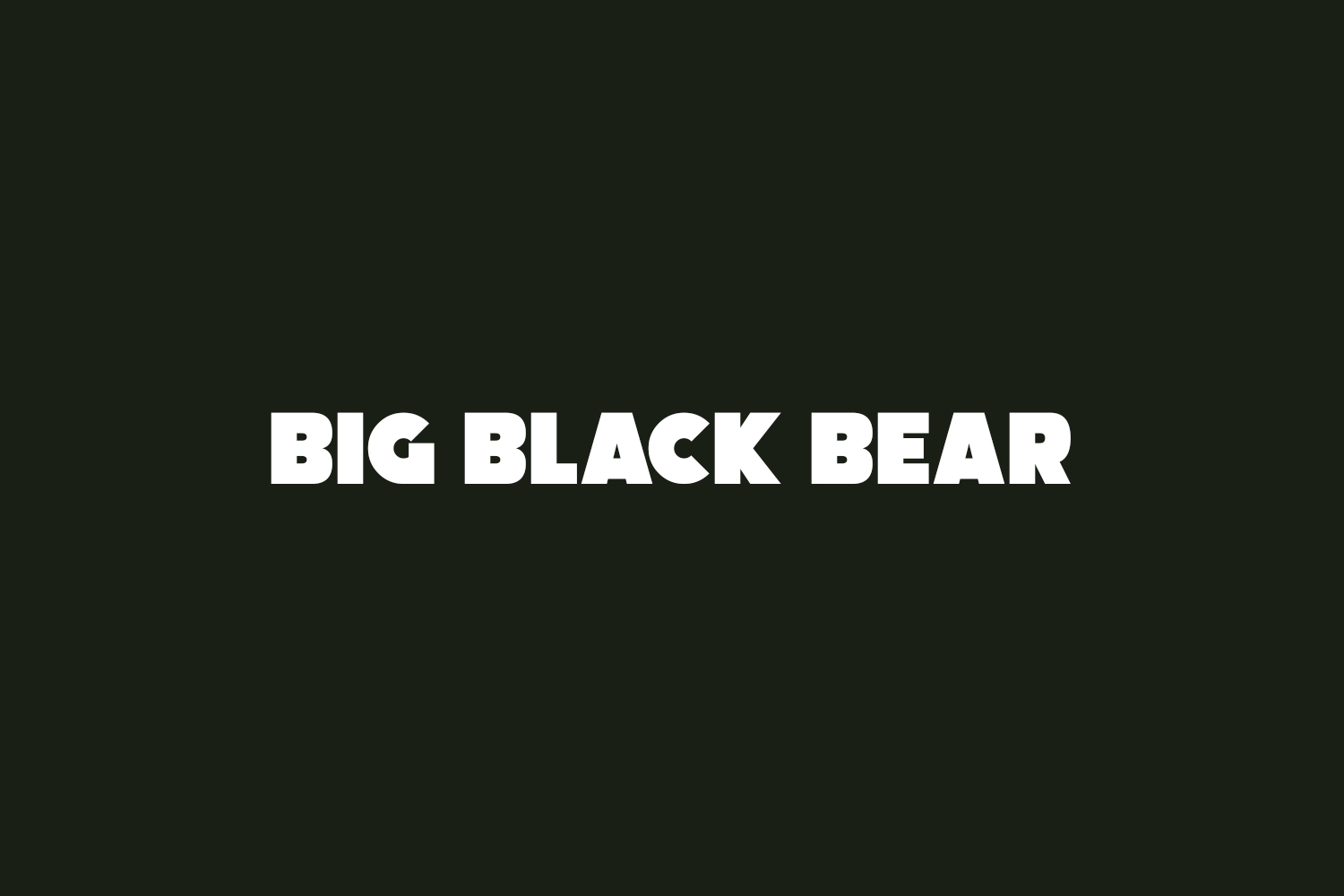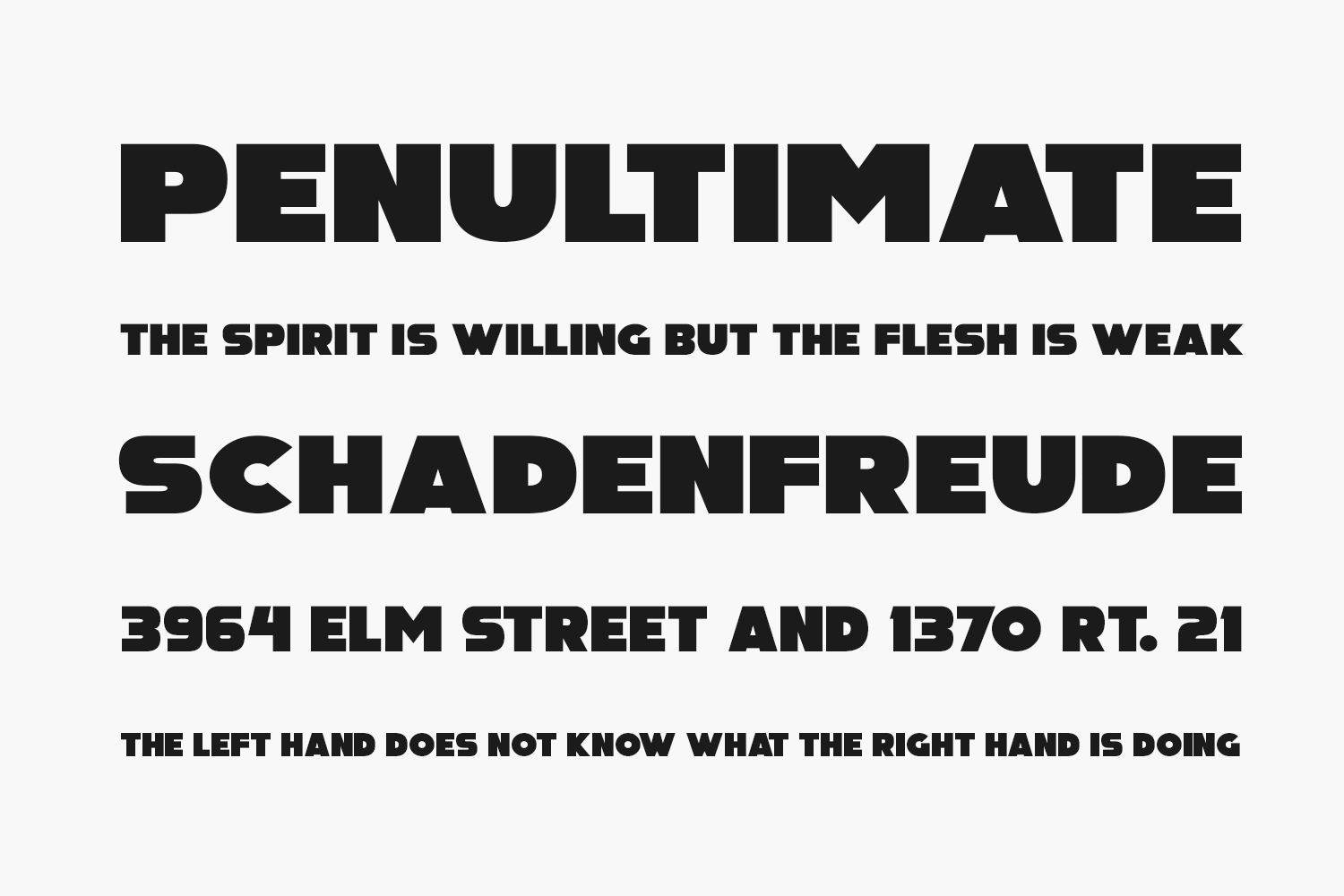
Big Black Bear Free Font Family is an ultrabold font in a clean, high-impact style. Perfect for titles and making words really “pop!”. Big Black Bear Free Font Family was designed by Darrell Flood and is free for personal use only. Please purchase the full version for commercial use.